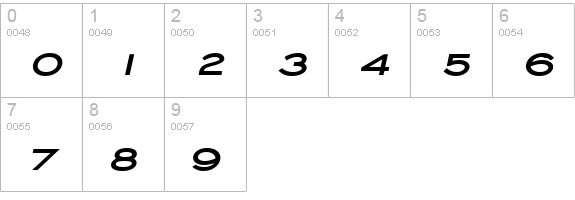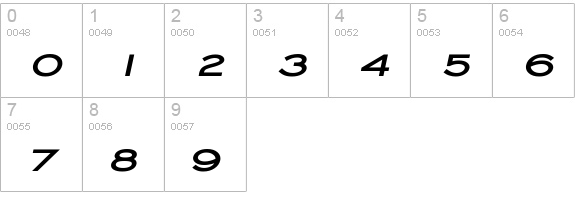
Chisel Wide Bold Italic is a strong, high-contrast, extended-width, italic variant in the Chisel typeface family \xE2\x80\x94 well suited to headlines, attention-grabbing titles, and strong calls-to-action.
Chisel Wide Bold Italic is a striking and dynamic font that commands attention with its bold lines and sharp angles. This modern typeface exudes confidence and strength, making it perfect for headlines, logos, and other design projects that require a bold statement. The italicized slant adds a touch of elegance and sophistication to the overall look. The Chisel Wide Bold Italic font is available for free download at FontsMarket.com, making it easily accessible for designers and creatives looking to add a bold and impactful touch to their work. Whether you're designing a poster, branding materials, or website headers, this font is sure to make a bold statement and leave a lasting impression on your audience. Download Chisel Wide Bold Italic today and elevate your design projects with its unique and powerful aesthetic.